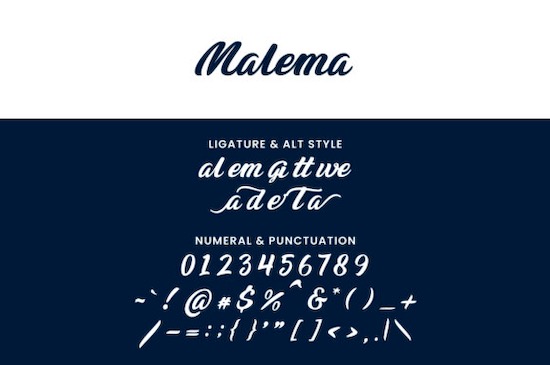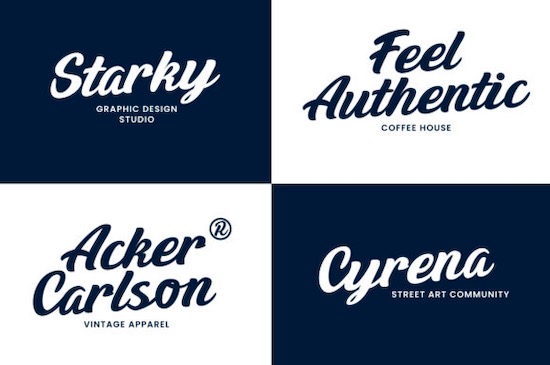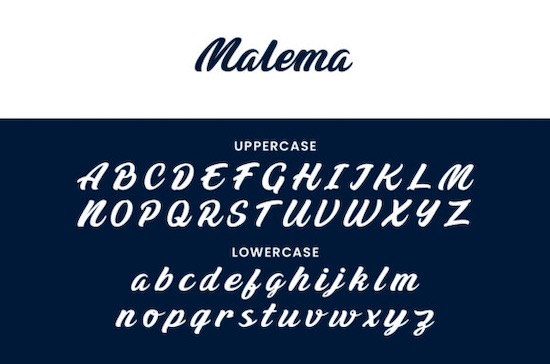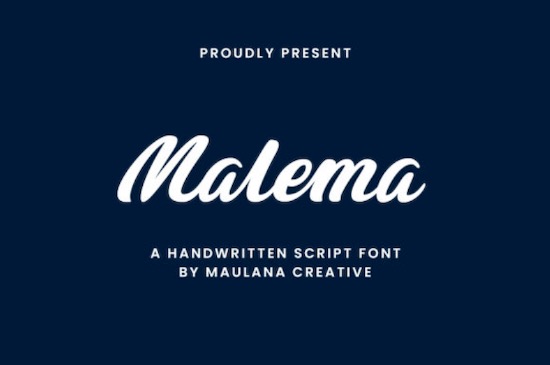
Malema font, this is a fancy and strong handwritten script typeface, and it’s crafted to give your titles as well as headlines an elegant, stylish touch.
It will give your every designs an authentic handcrafted feel. And this font is perfectly suited to branding, typography quotes, website header, stationery, signature, logo, book cover, and so on.
Malema Handwritten Script Font